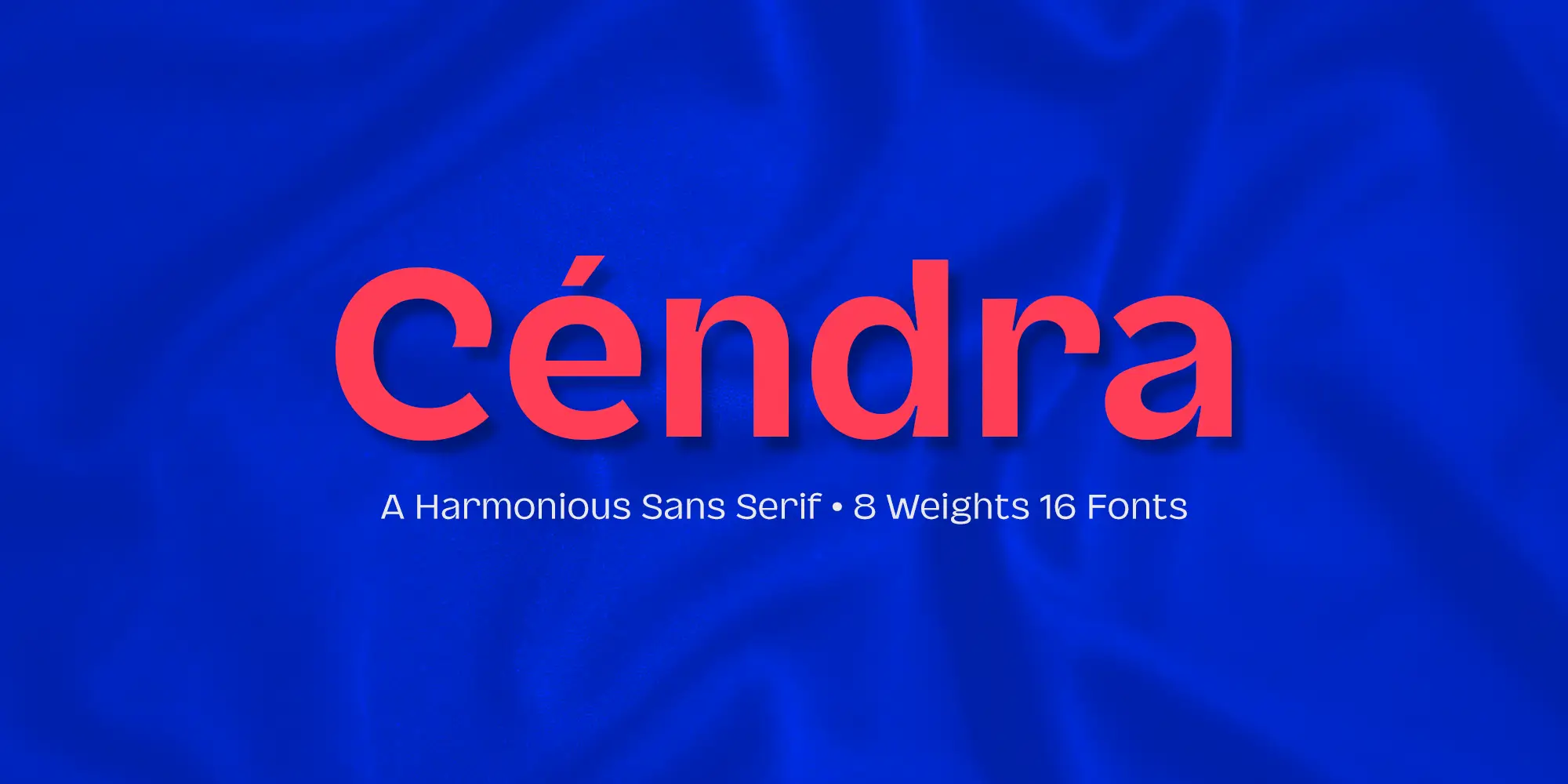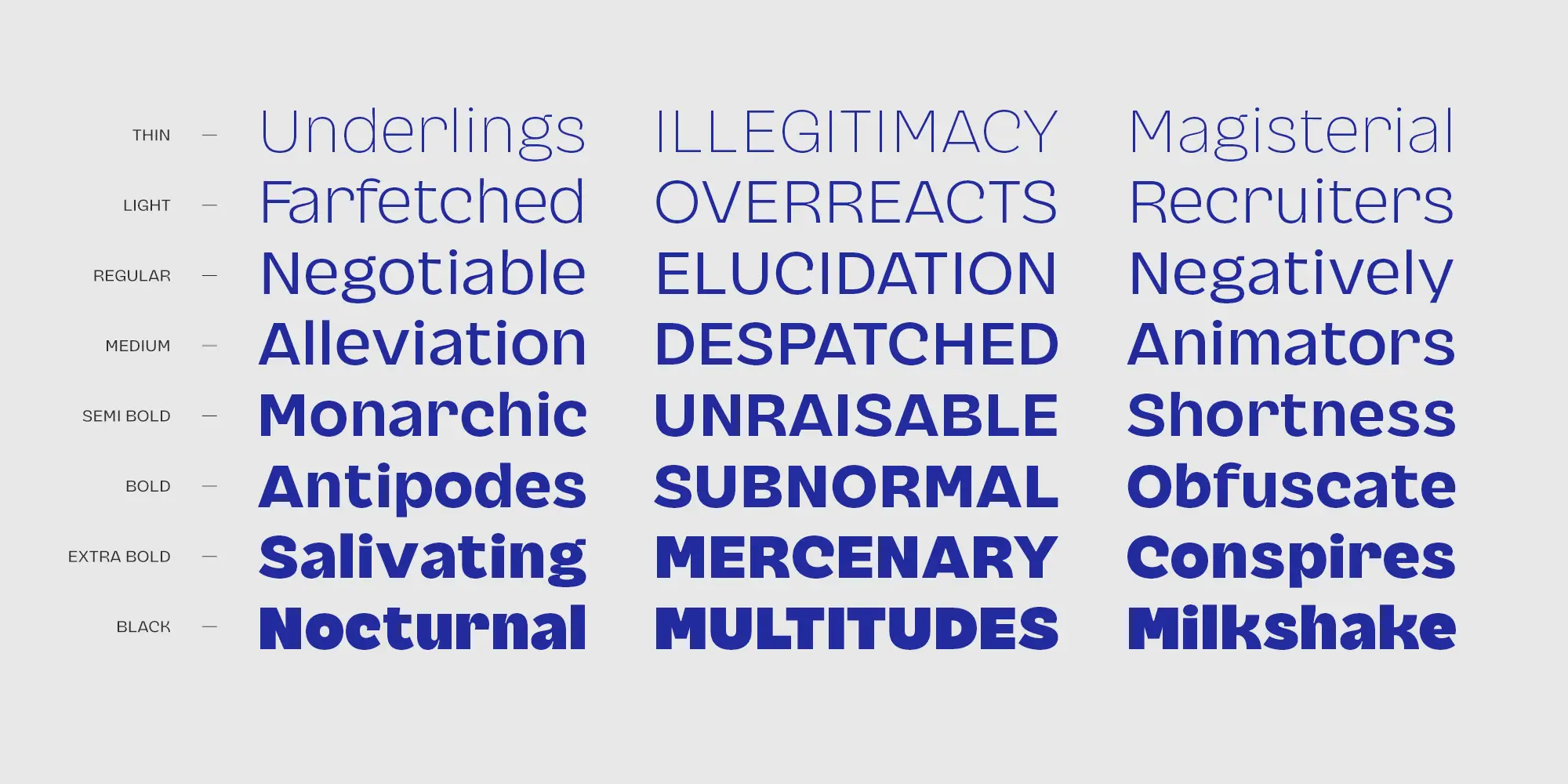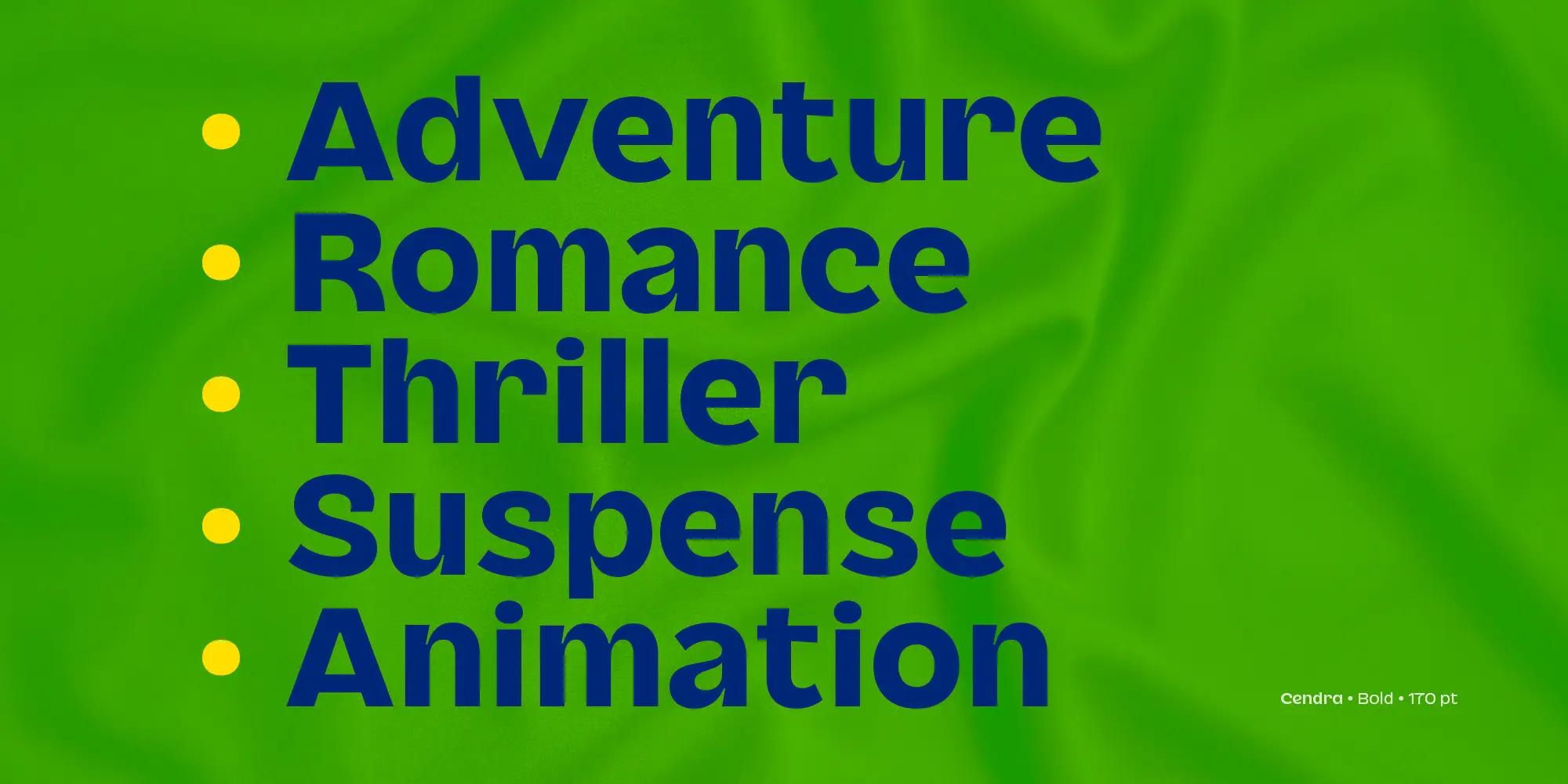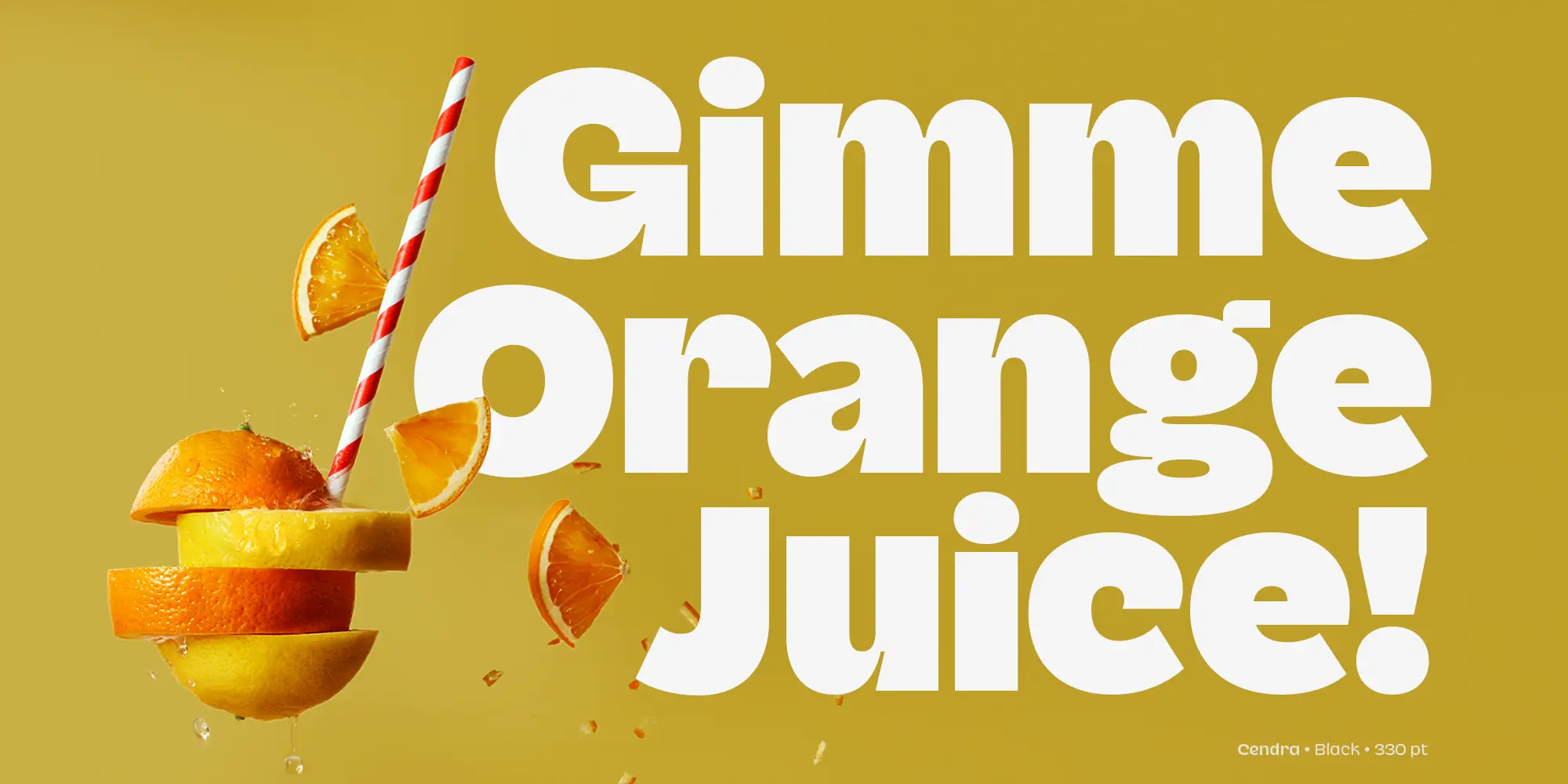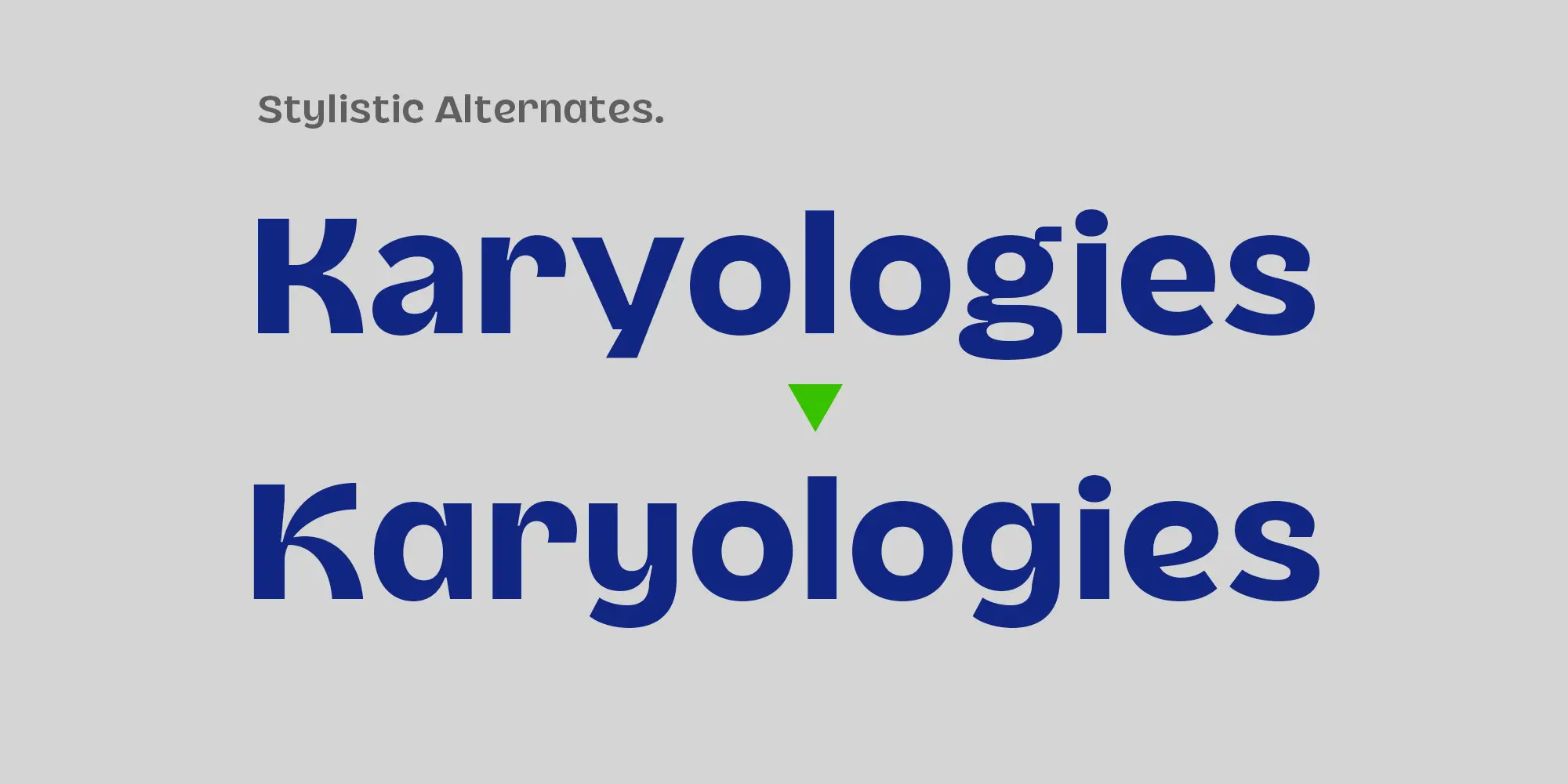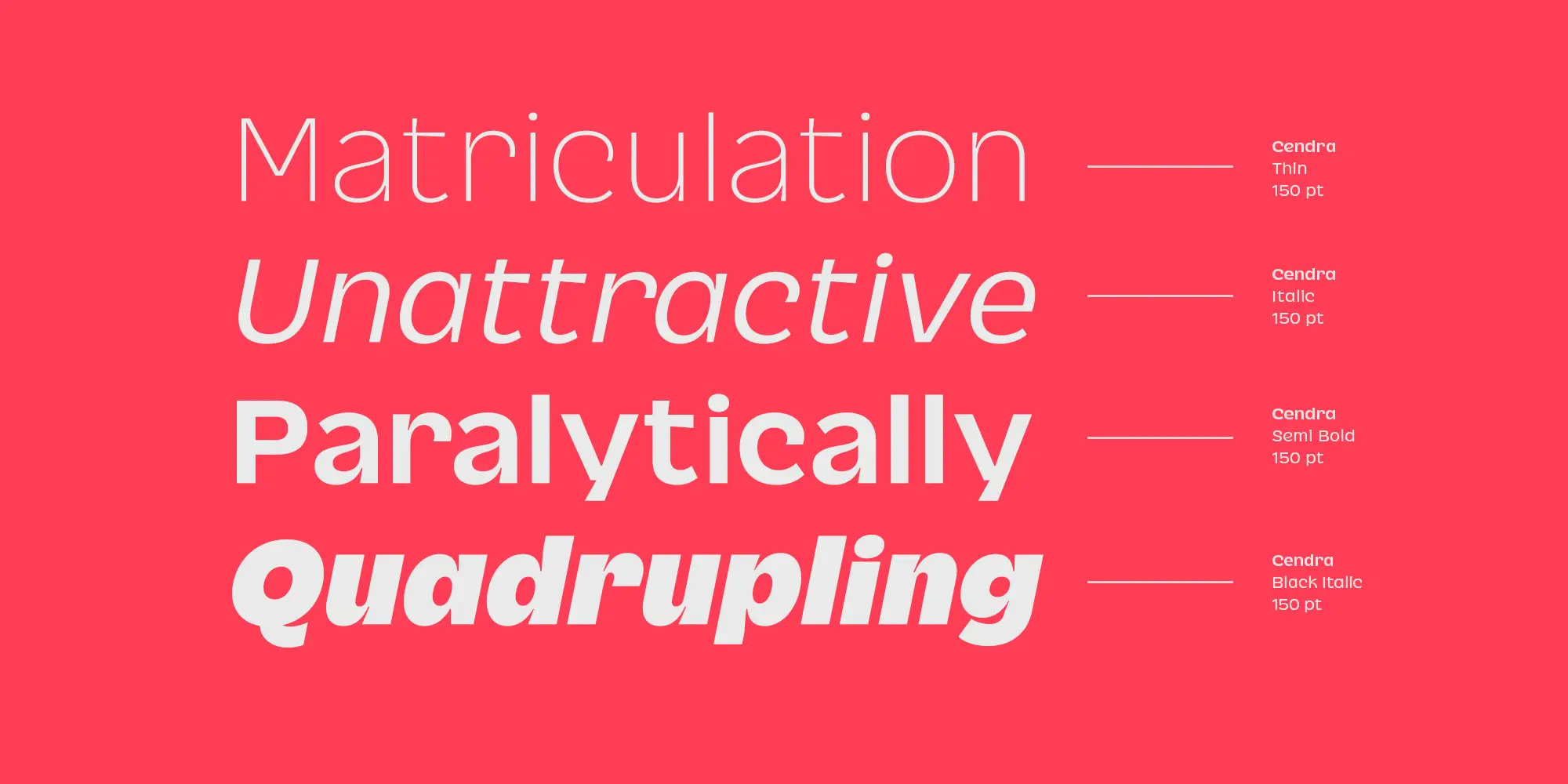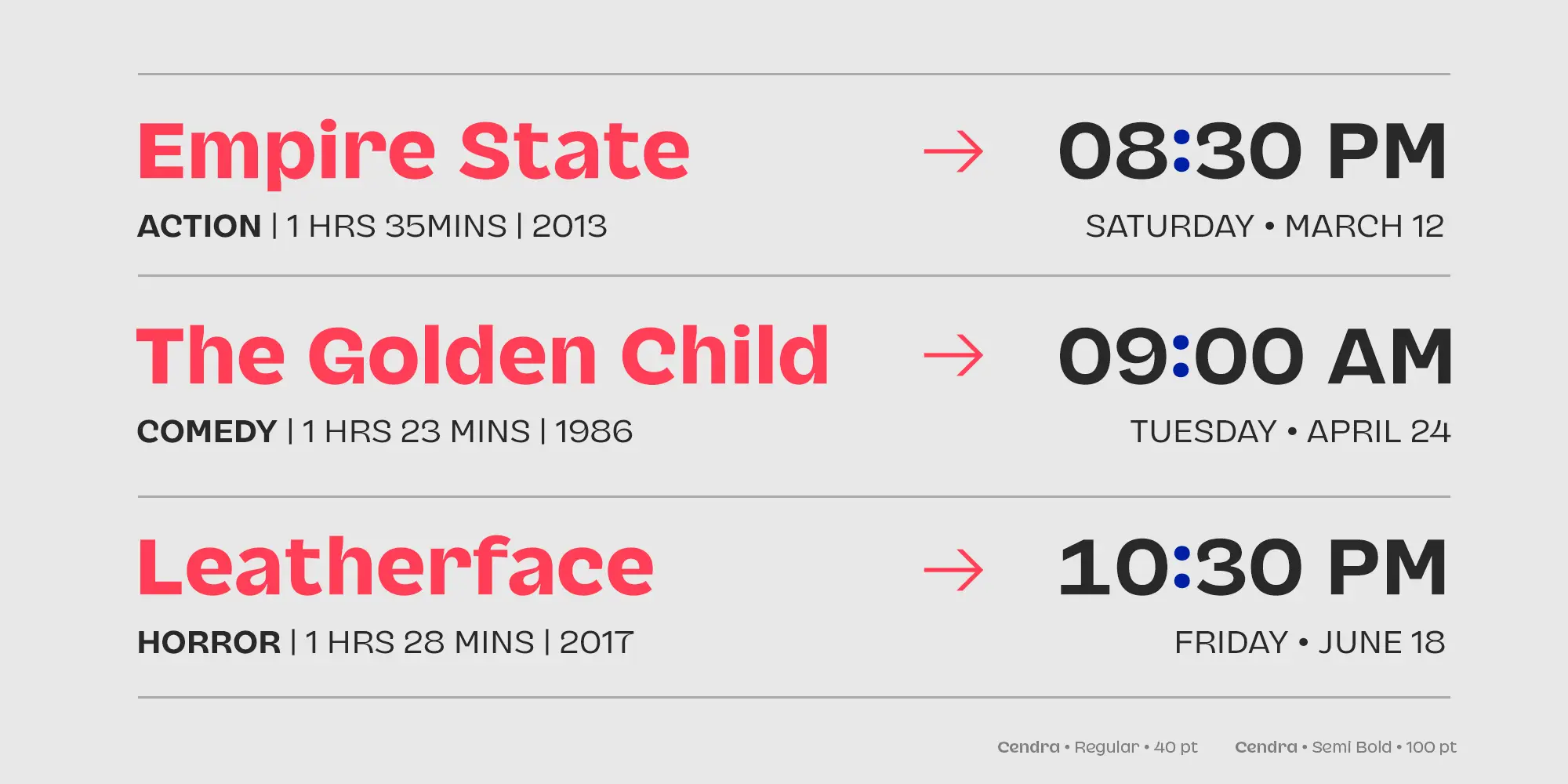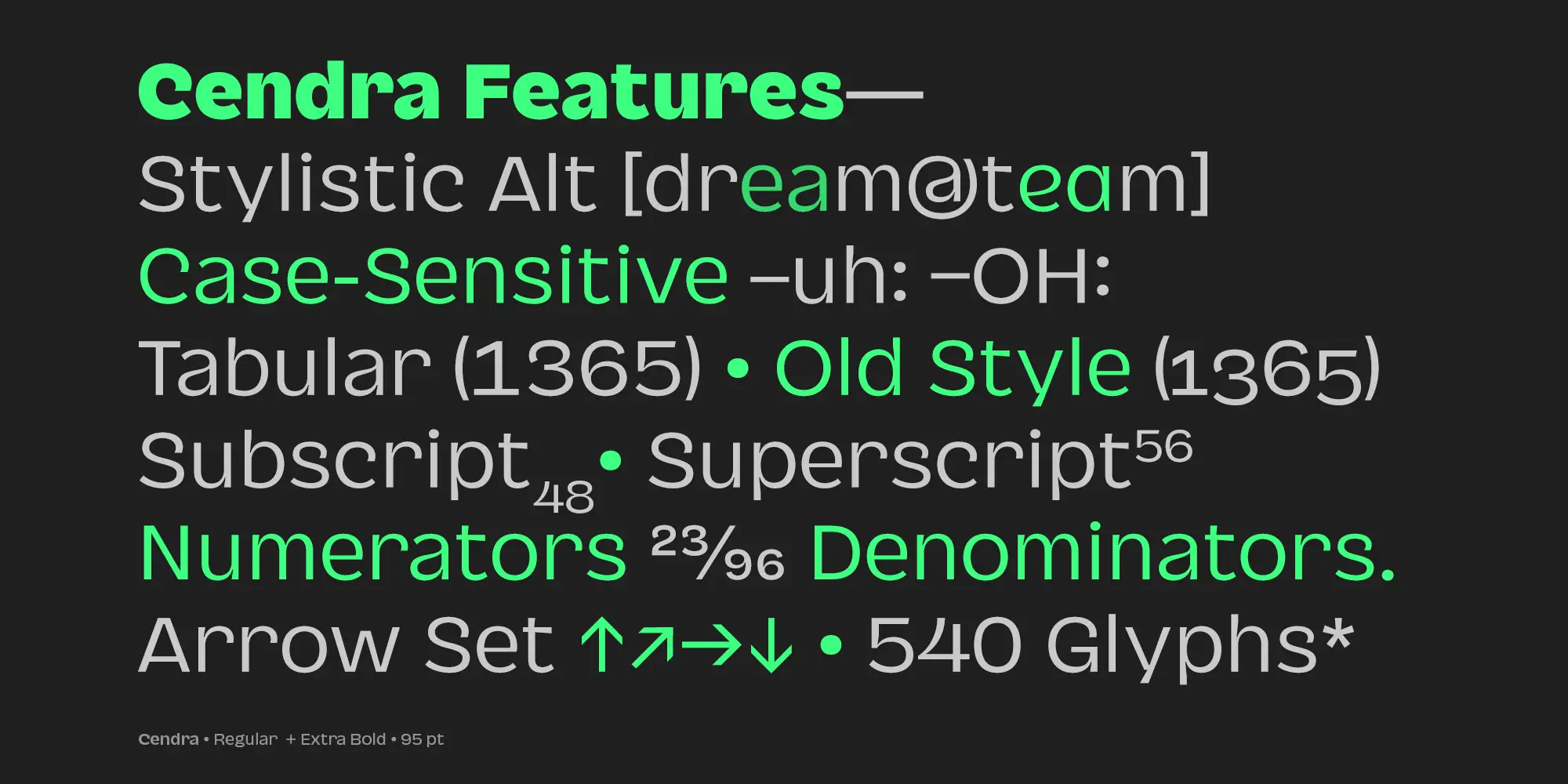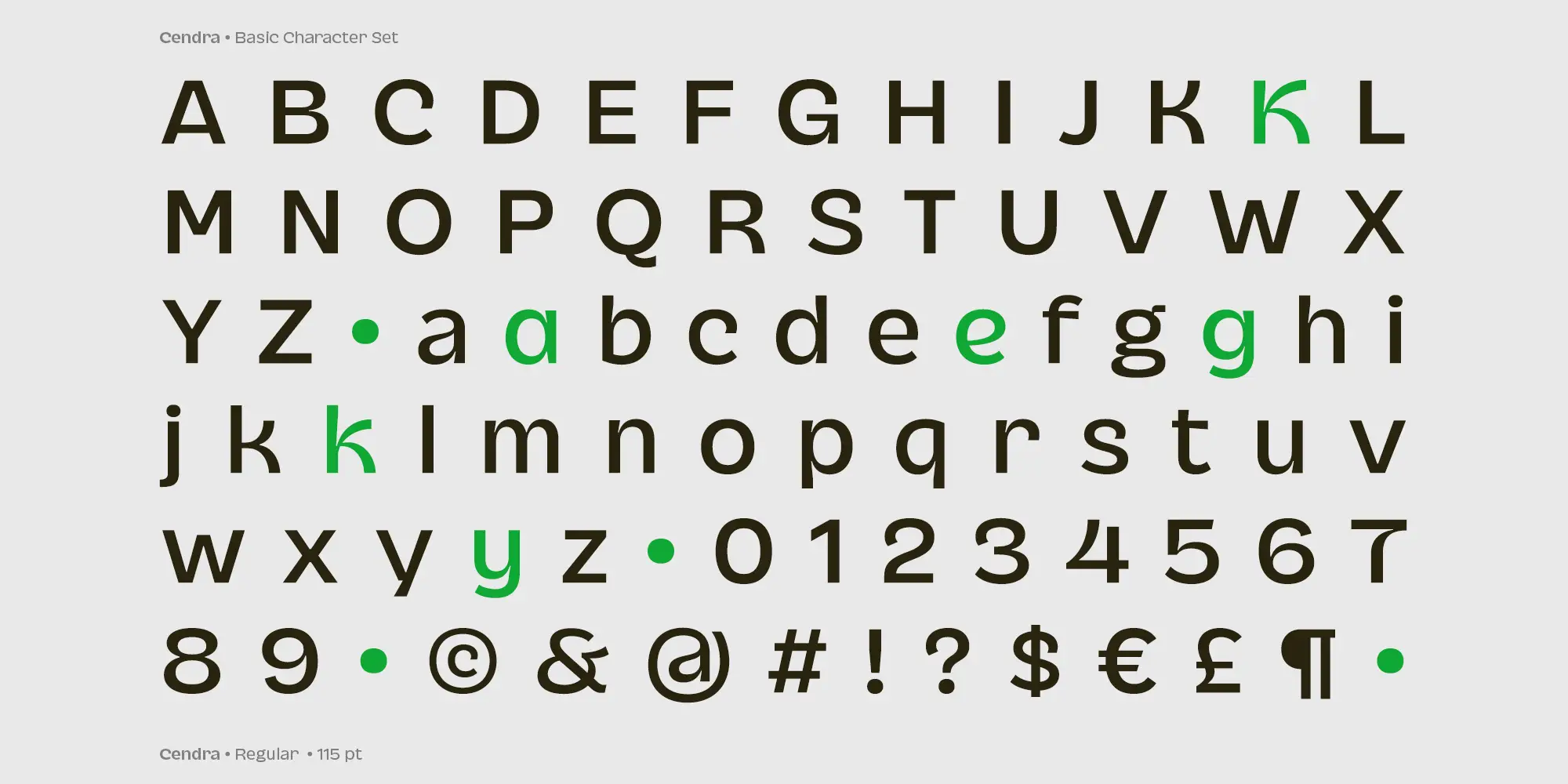
Introducing Cendra, a cutting-edge typeface meticulously crafted to seamlessly blend functionality and personality into a harmonious masterpiece. Elevate your design projects with Cendra, boasting an impressive range of 8 weights, from the delicate Thin to the commanding Black.
Experience unparalleled versatility and tailor your creations to perfection, as Cendra’s remarkable versatility empowers you to meet every design demand with finesse and flair. Embrace the synergy of upright and matching italics versions, ensuring your designs exude a dynamic and cohesive aesthetic. Cendra adds a touch of approachability to any design, making it the perfect choice for captivating branding, eye-catching packaging and cheerful poster designs.